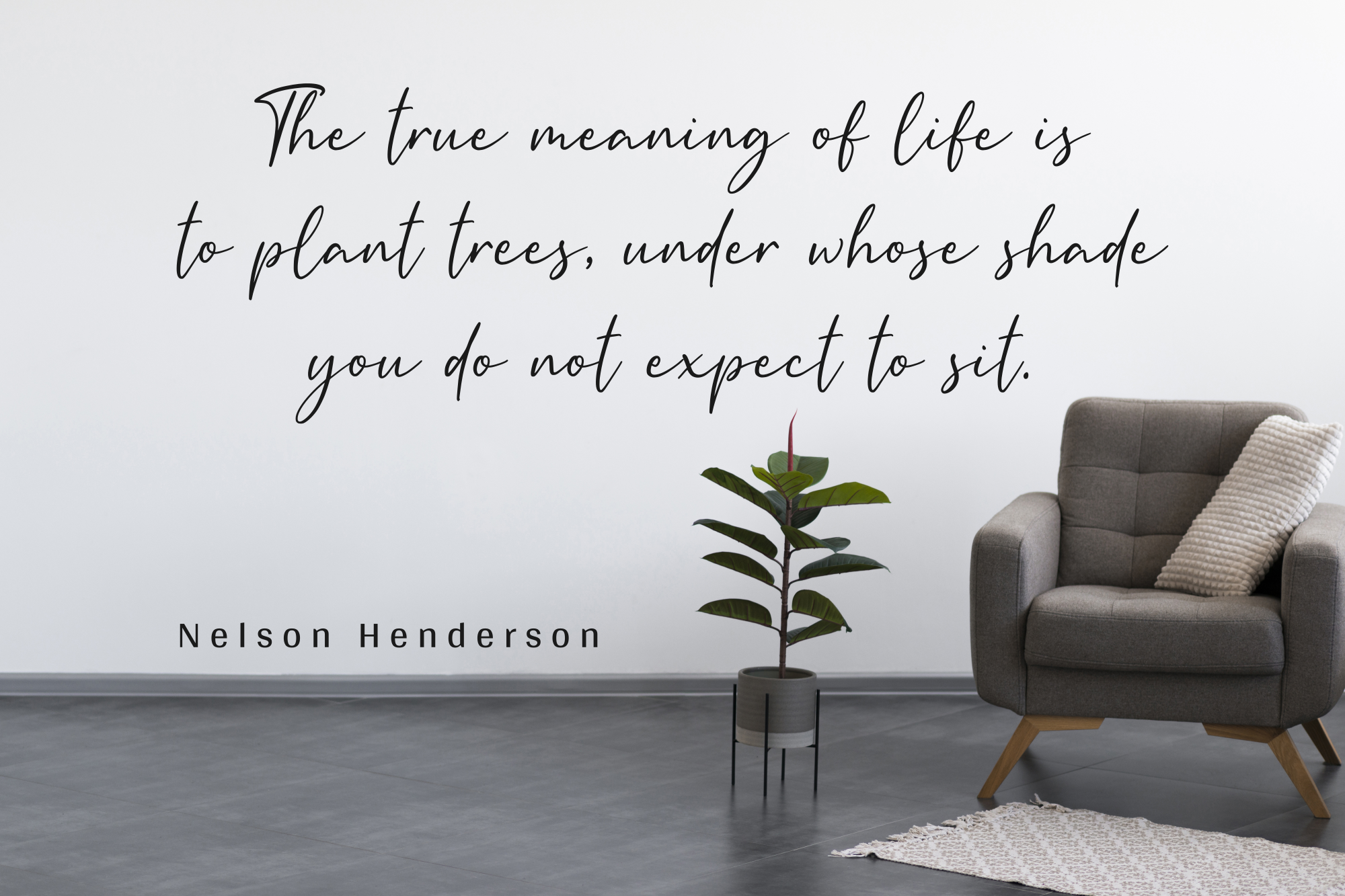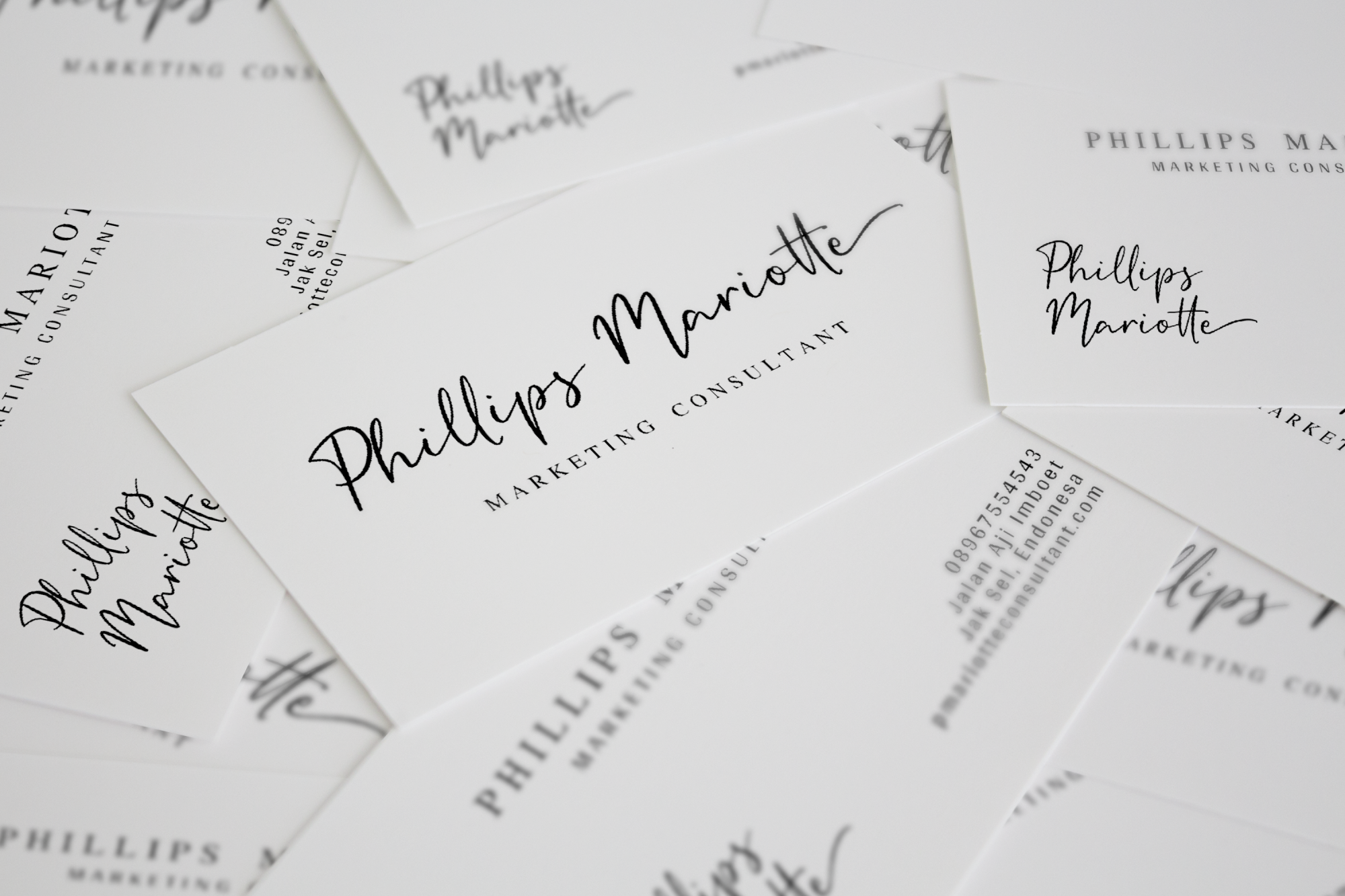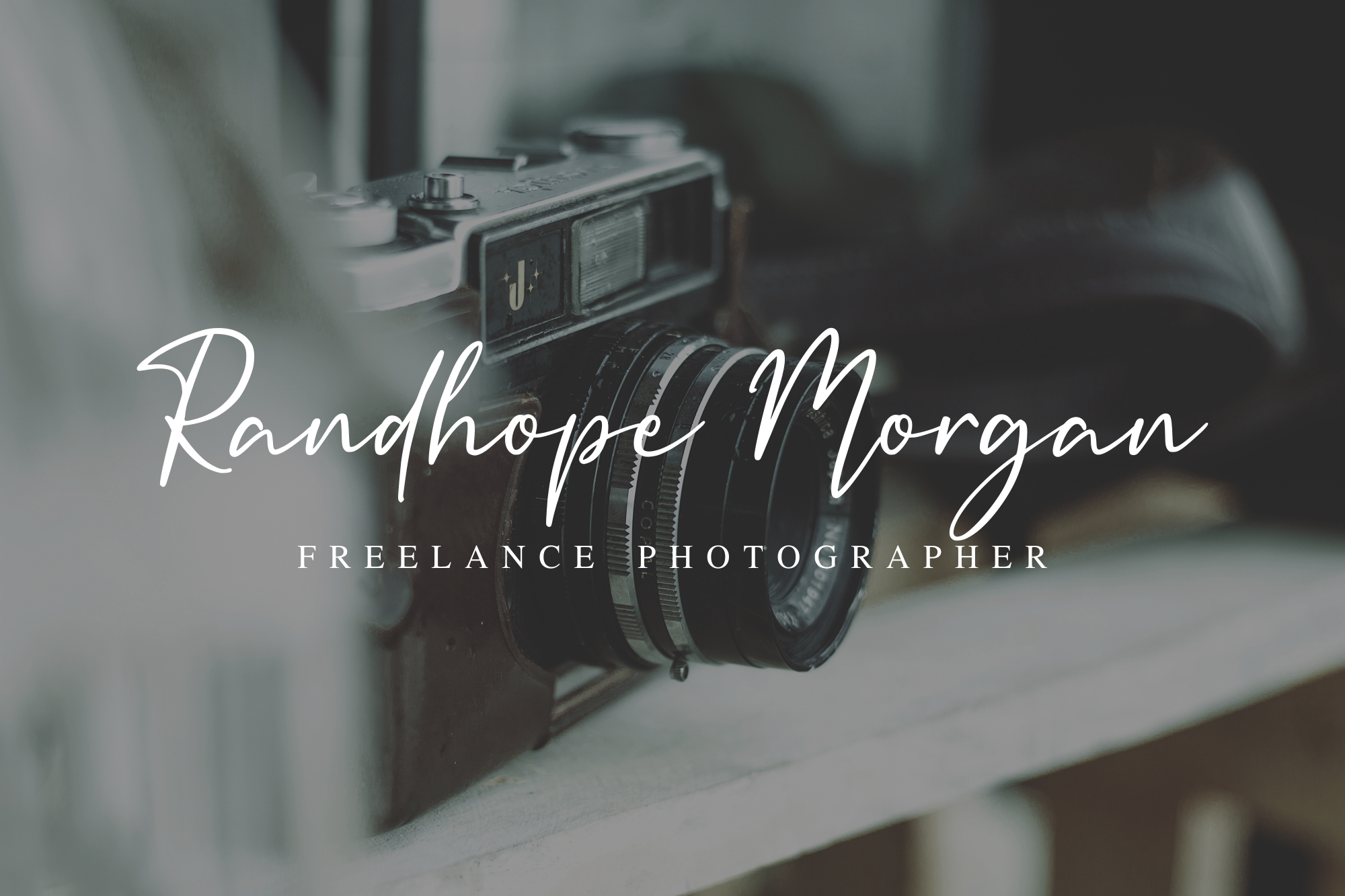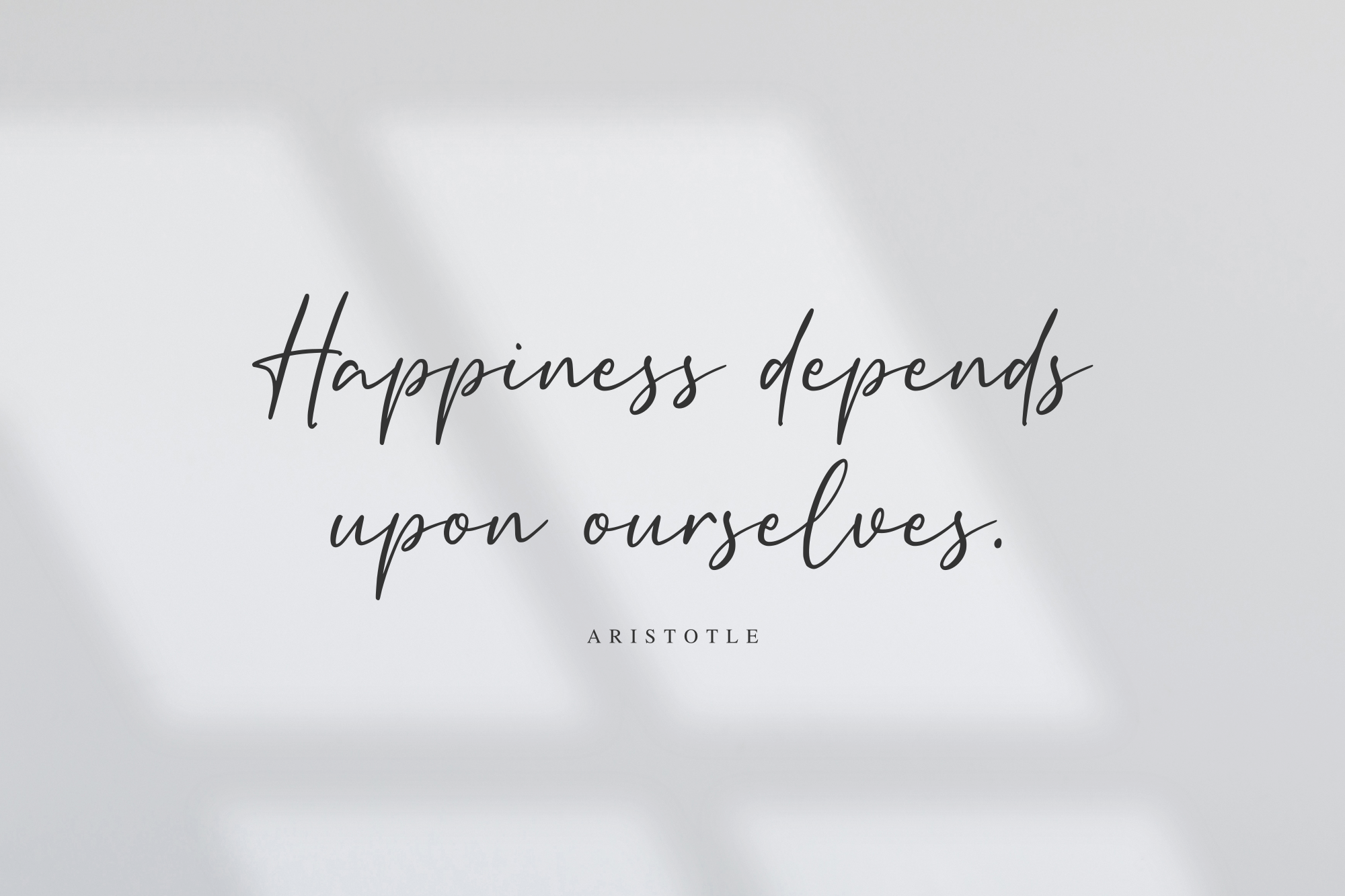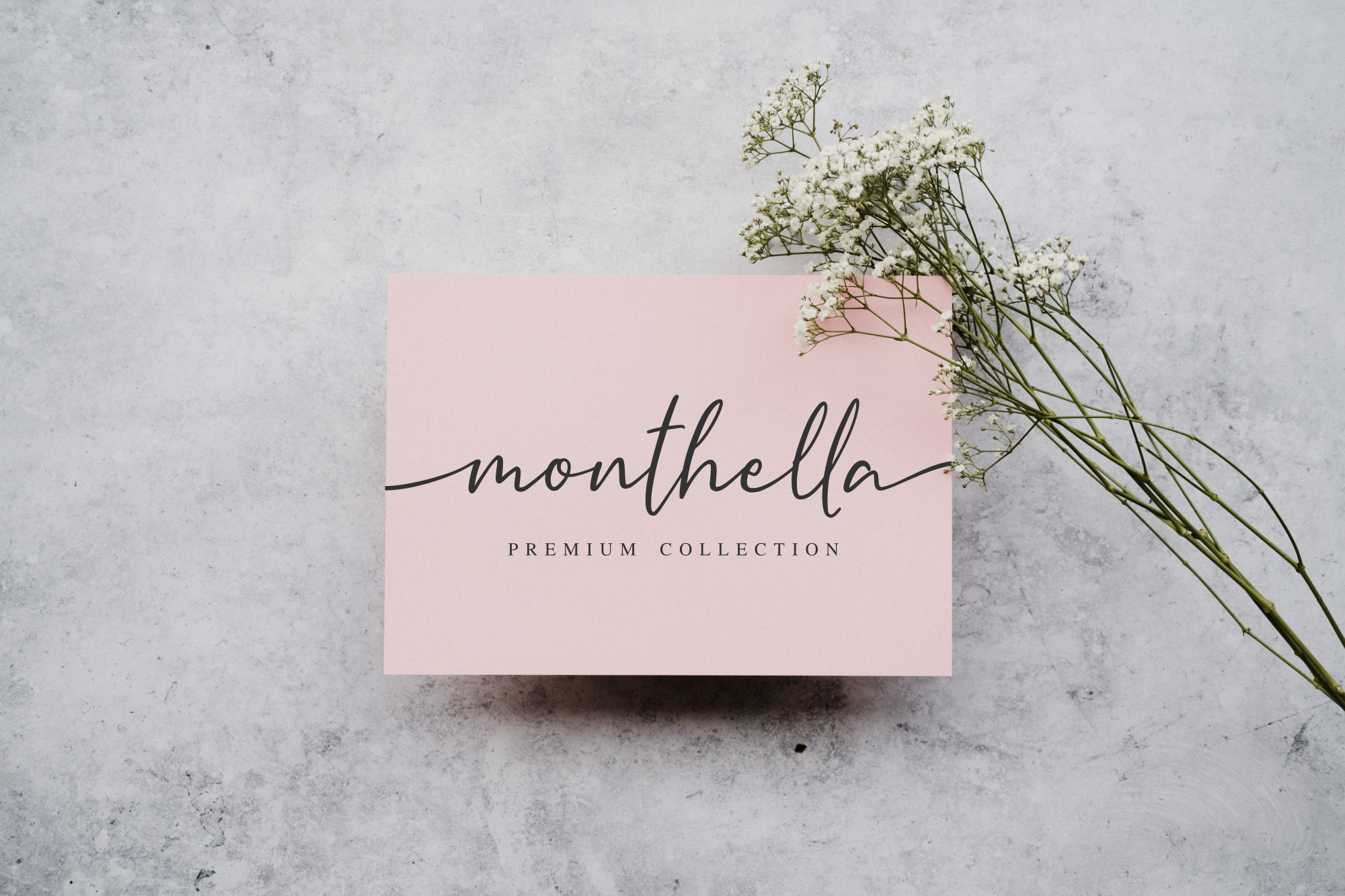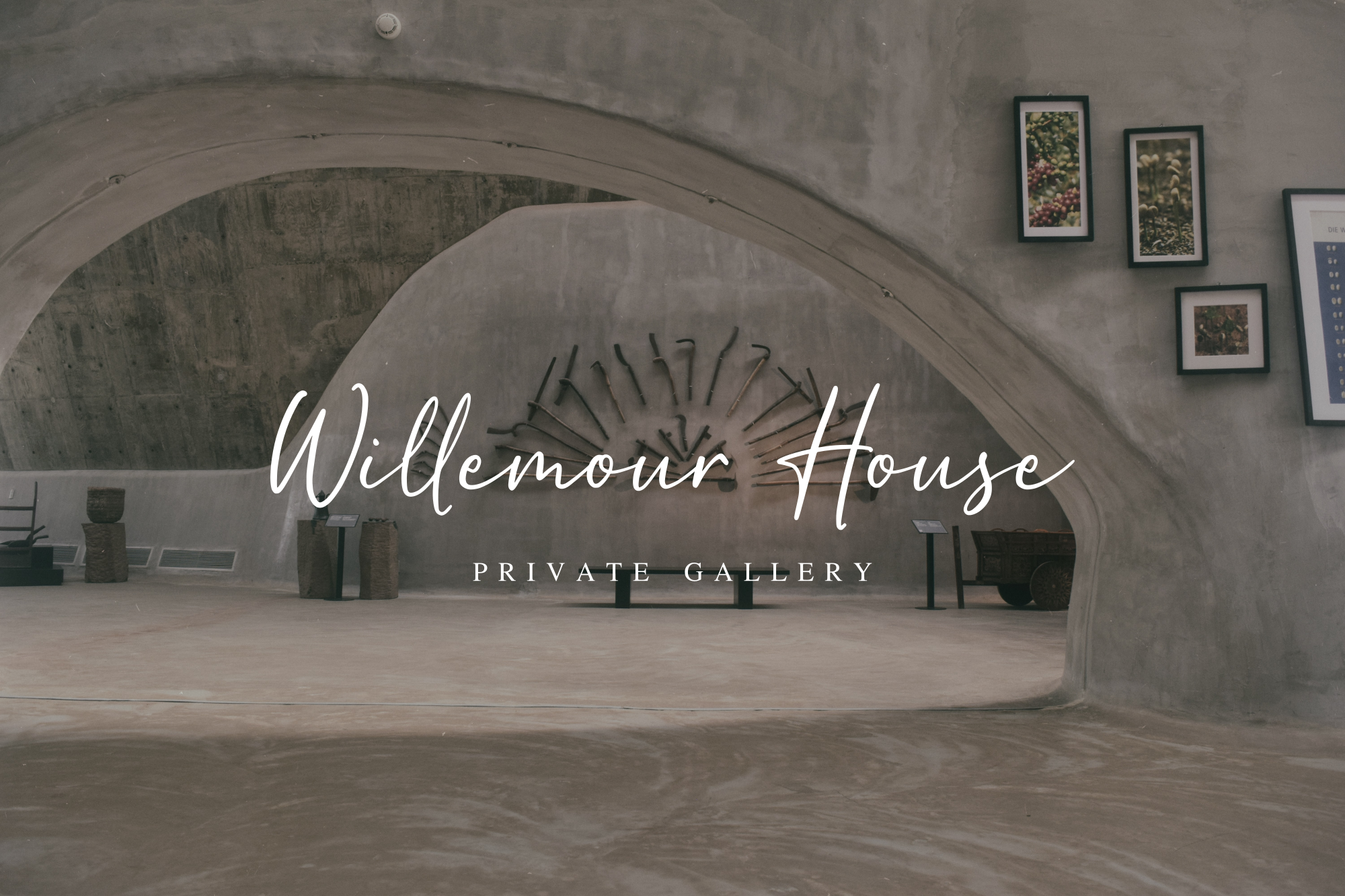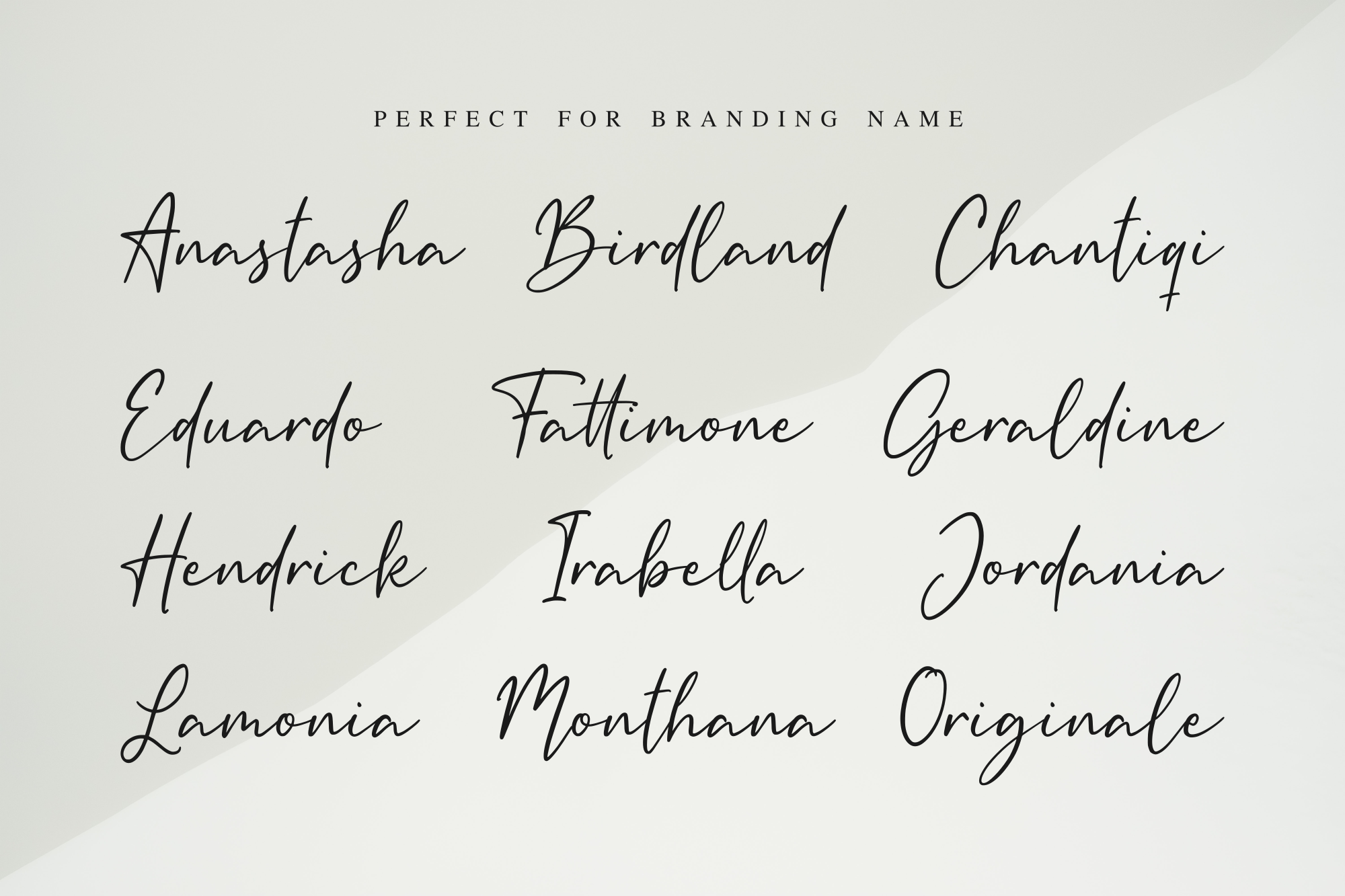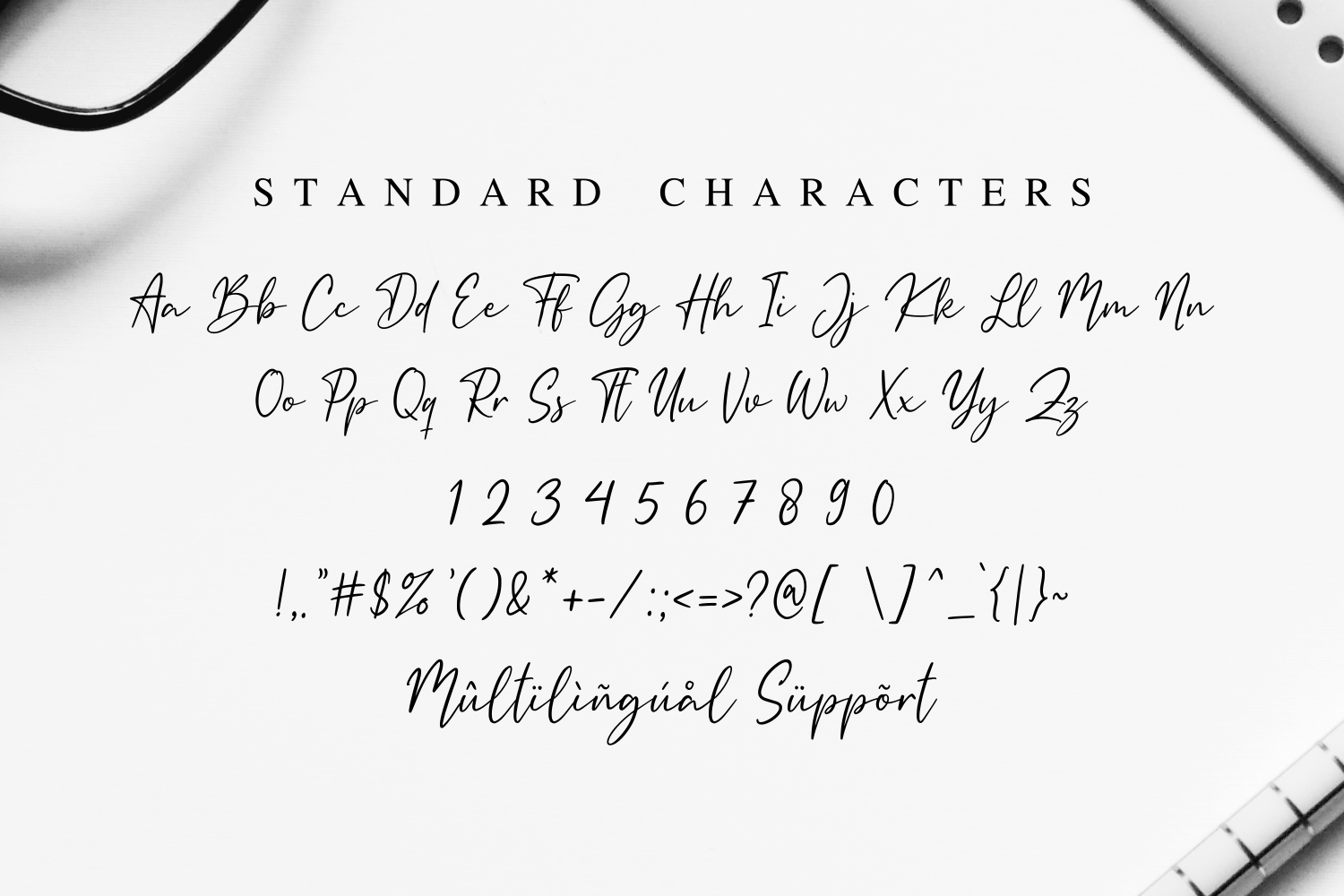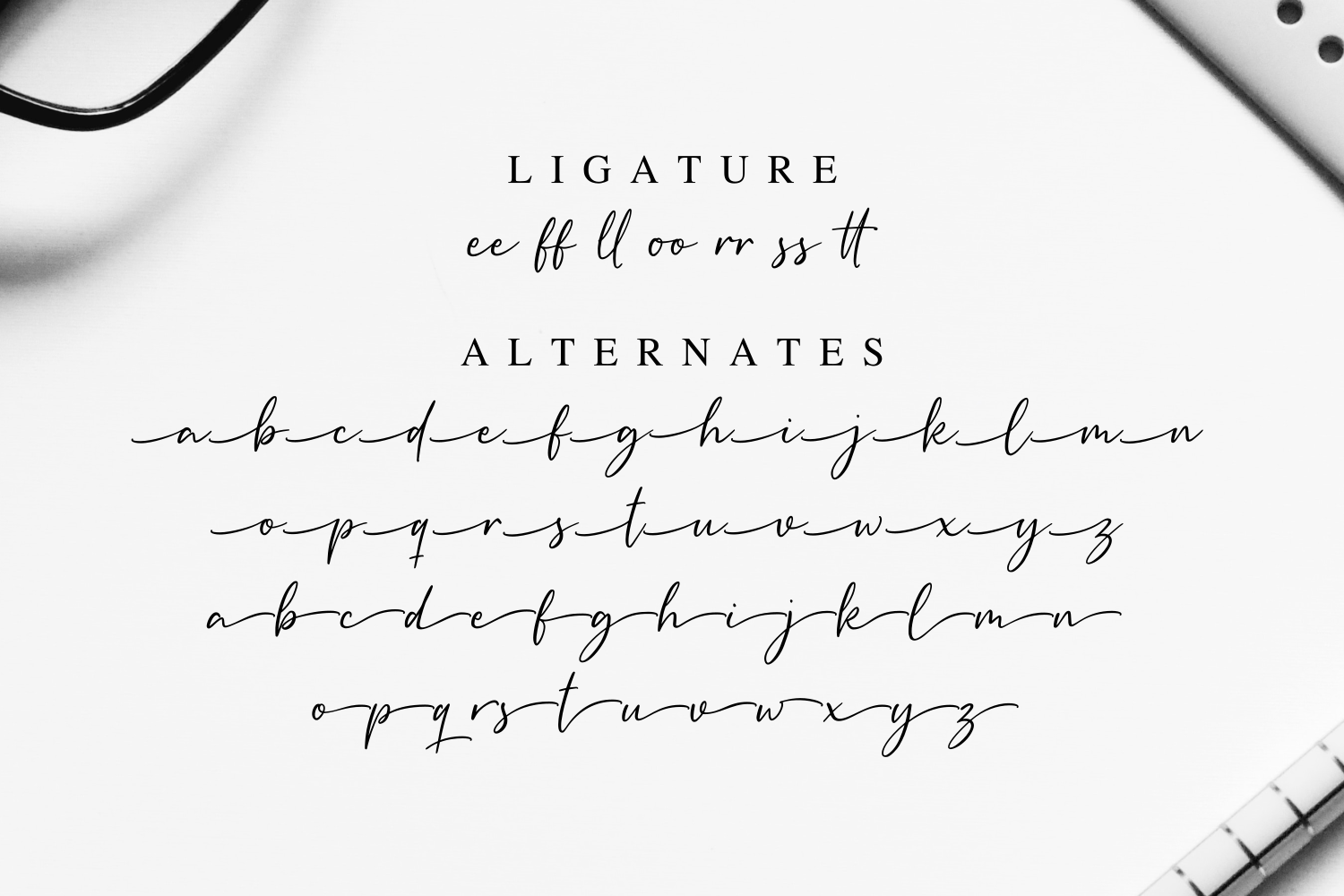
Kallinsha - Classy Signature Font
Kallinsha is an elegant handwritten font with an authentic and refined feel. It is designed to bring a soft, beautiful touch to your creative projects.
Kallinsha is an elegant handwritten font with an authentic and refined feel. It is designed to bring a soft, beautiful touch to your creative projects. It is perfect for wedding invitations, stationery art, social media posts, greeting cards, branding, and more.
Wedding invitations, stationery art, social media posts, greeting cards, branding,